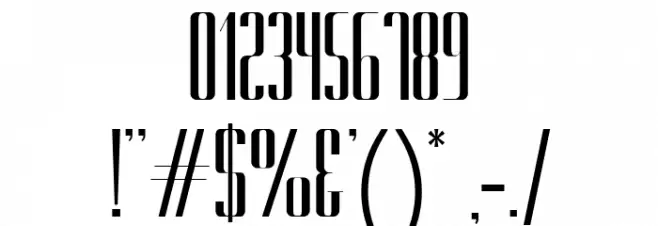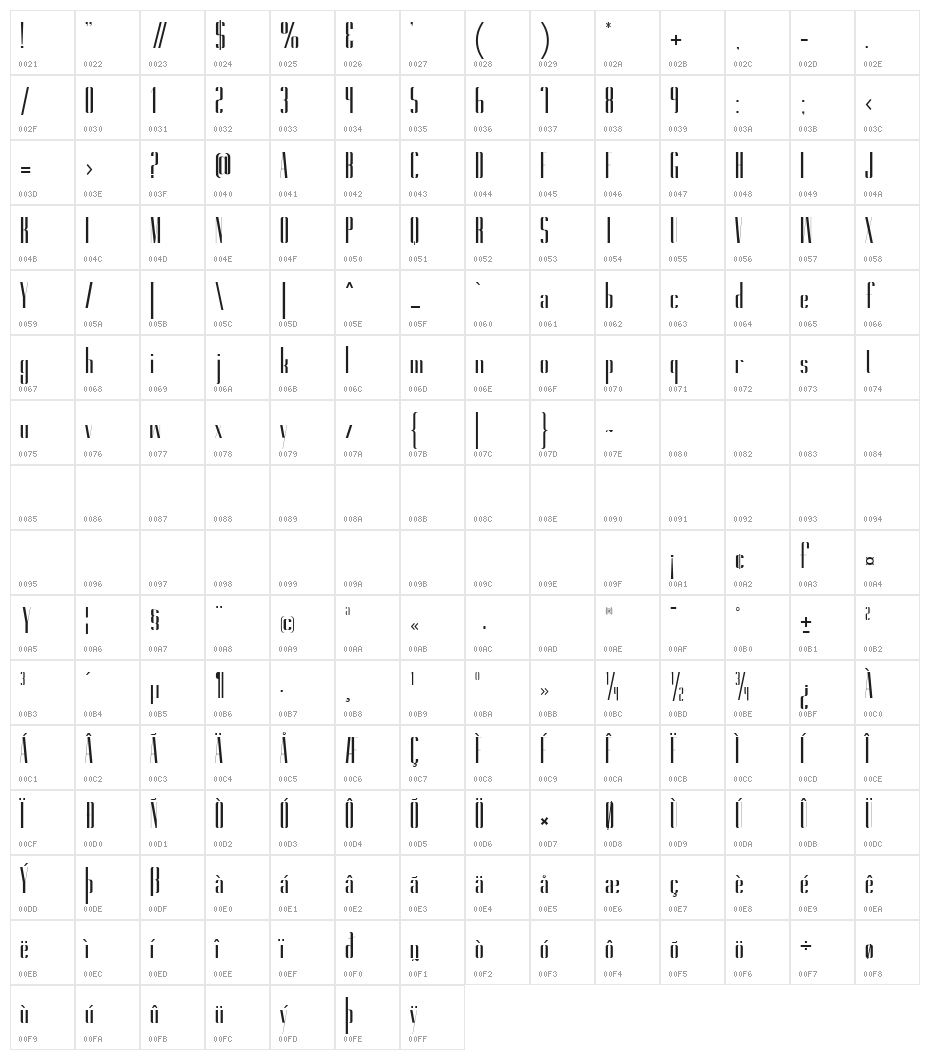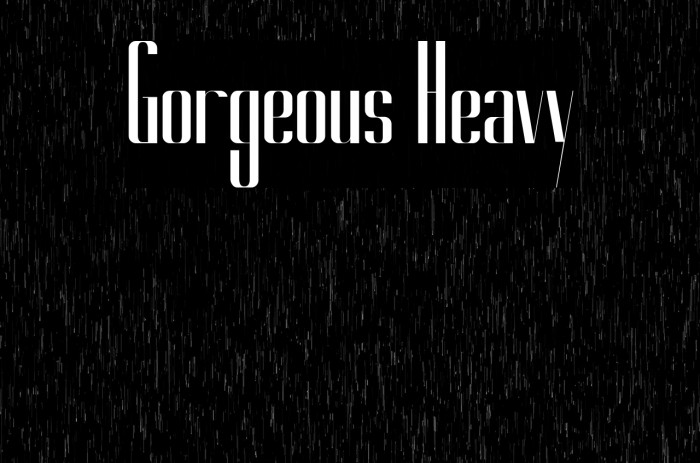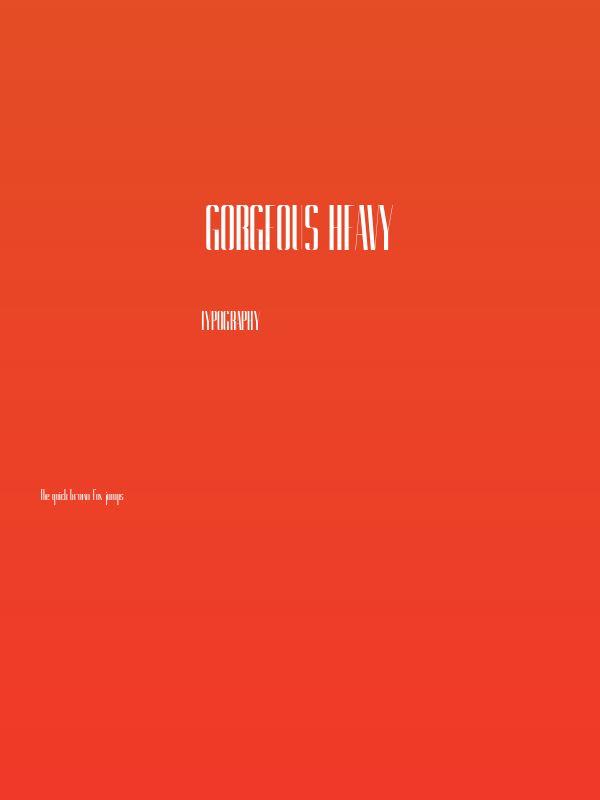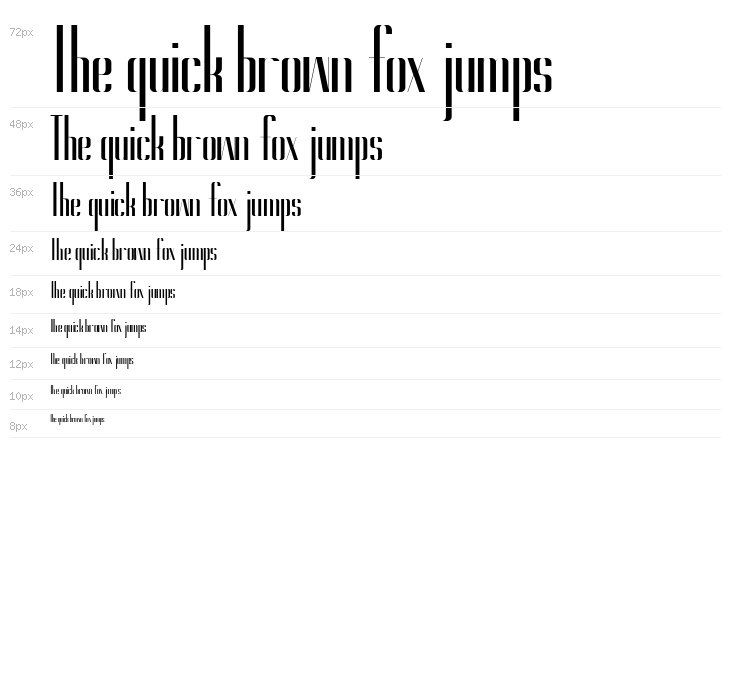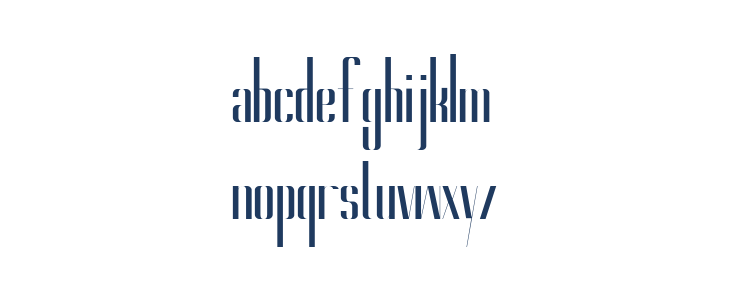
Gorgeous Heavy Font
Gorgeous Heavy Description
This font is a striking display typeface characterized by its tall, narrow letterforms and high contrast between thick and thin strokes. The uppercase letters exhibit a modern elegance with elongated verticals, while the lowercase letters maintain a consistent style that complements the uppercase. The numerals are equally tall and slender, adding to the cohesive aesthetic. Special characters are designed with the same attention to detail, ensuring a seamless integration with the rest of the typeface. The overall appearance is sophisticated and stylish, making it ideal for impactful headlines and branding.
| Proposed Projects | Ideal for luxury branding, fashion magazines, high-end product packaging, and modern editorial design. |